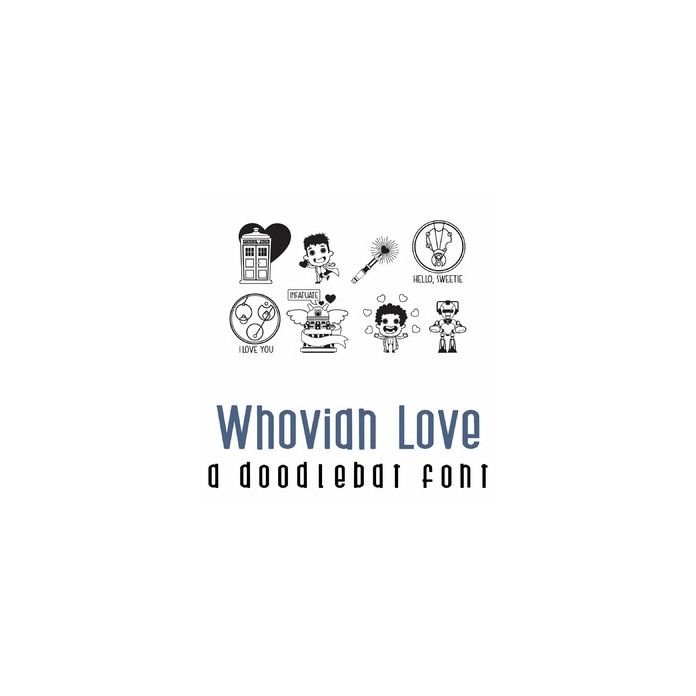
This fun doodlebat font features 26 Valentine-themed images from your favorite Time Lord. Perfect for cards, crafts, gifts, decor, scrapbook pages, planner stickers and more!